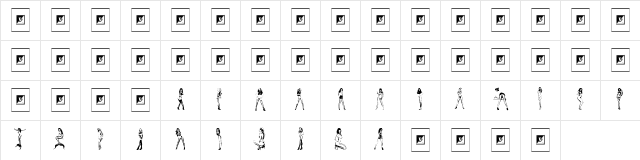
Cuties by Carlos Regular Free Font
Cuties by Carlos Regular
Design Context for Cuties by Carlos
Cuties by Carlos is a composed and adaptable typeface that performs quietly and consistently across a wide range of design contexts.